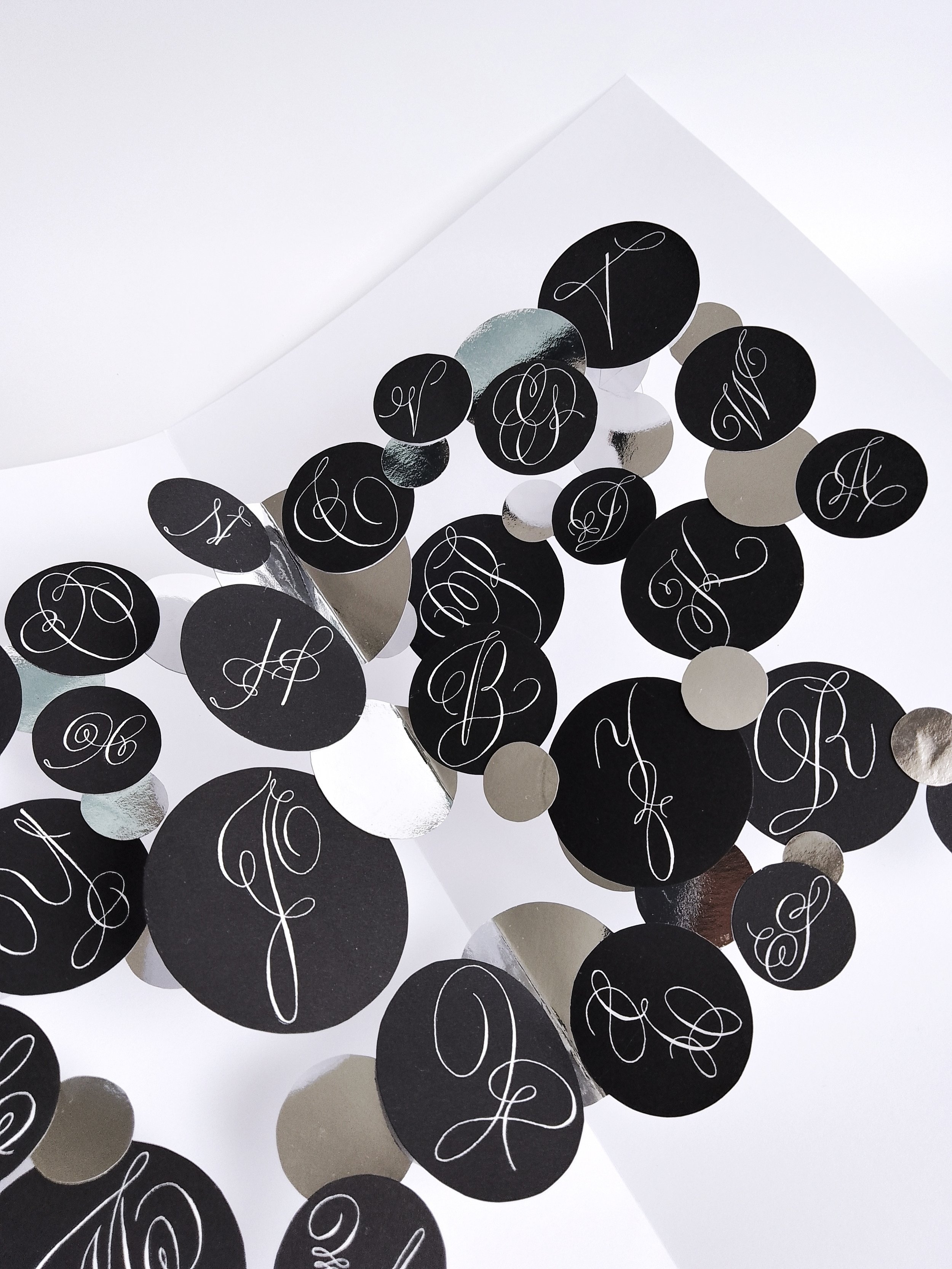
ELIF LAXAGE STUDIOS | Floating Letters
ARTIST | Elif Laxage Studios
BASED IN | Turkey
TITLE | Floating Letters
Flourished capitals are brought to life in an interactive design with a floating plane mechanism. Carefully selected from nine flourished variations I designed in Copperplate calligraphy, the letters float effortlessly, transforming the written word into a dynamic visual experience.
MEDIUM | Gouache, 200g and 240g metallic cardstock acrylic sheet